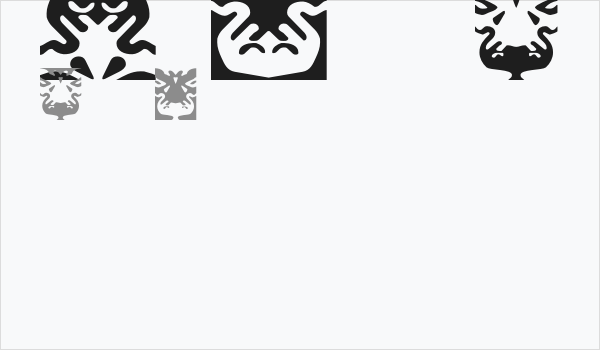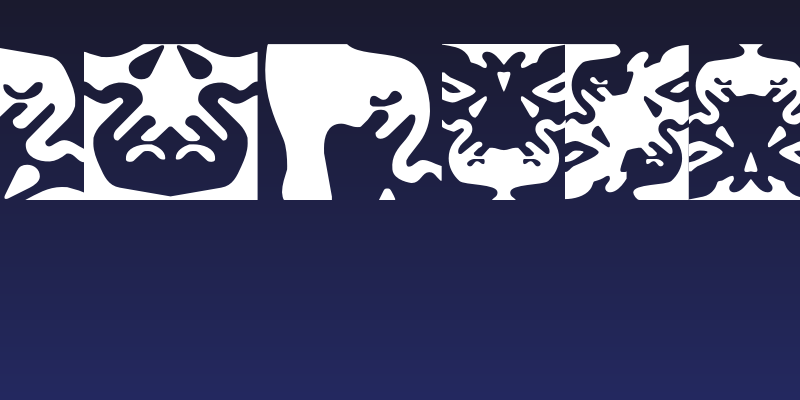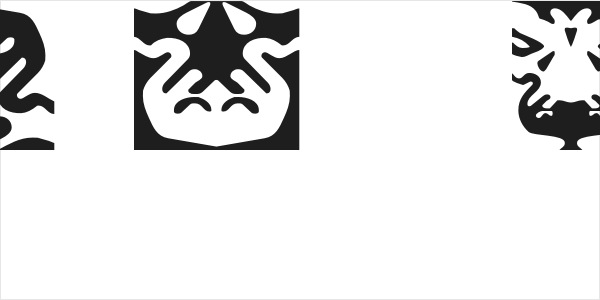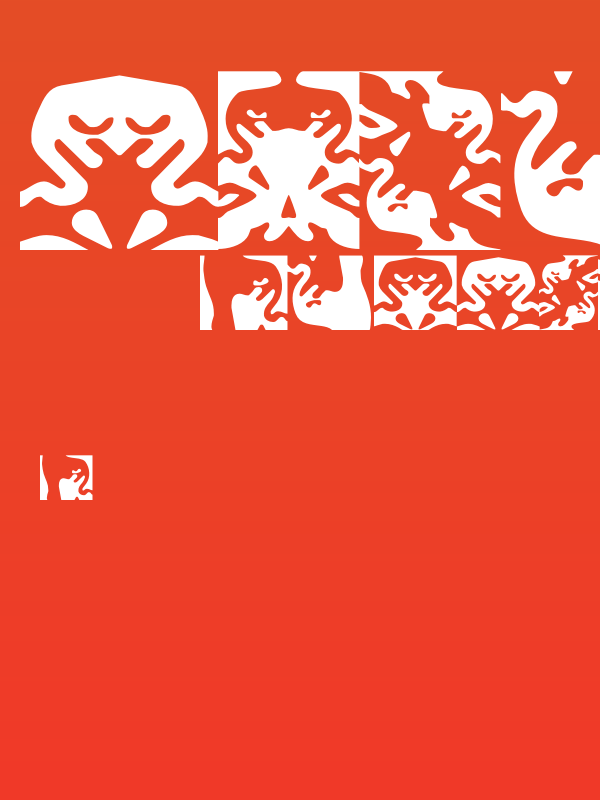
ObeyRorschachCaps Font
ObeyRorschachCaps Description
This font features an intricate and abstract design, reminiscent of Rorschach inkblot tests. Each character is uniquely crafted with symmetrical, mirrored patterns that create a sense of mystery and artistic flair. The bold, high-contrast black and white design makes it stand out, while the complex shapes within each letterform suggest a sense of depth and creativity. The font's decorative nature makes it ideal for artistic and avant-garde projects, where a strong visual impact is desired. Its unique style can evoke curiosity and engage viewers, making it suitable for use in branding, posters, and other creative applications.
| Use Case | Logos, Posters, Artistic Branding |
| Proposed Projects | Ideal for artistic branding, posters, album covers, and avant-garde design projects. |